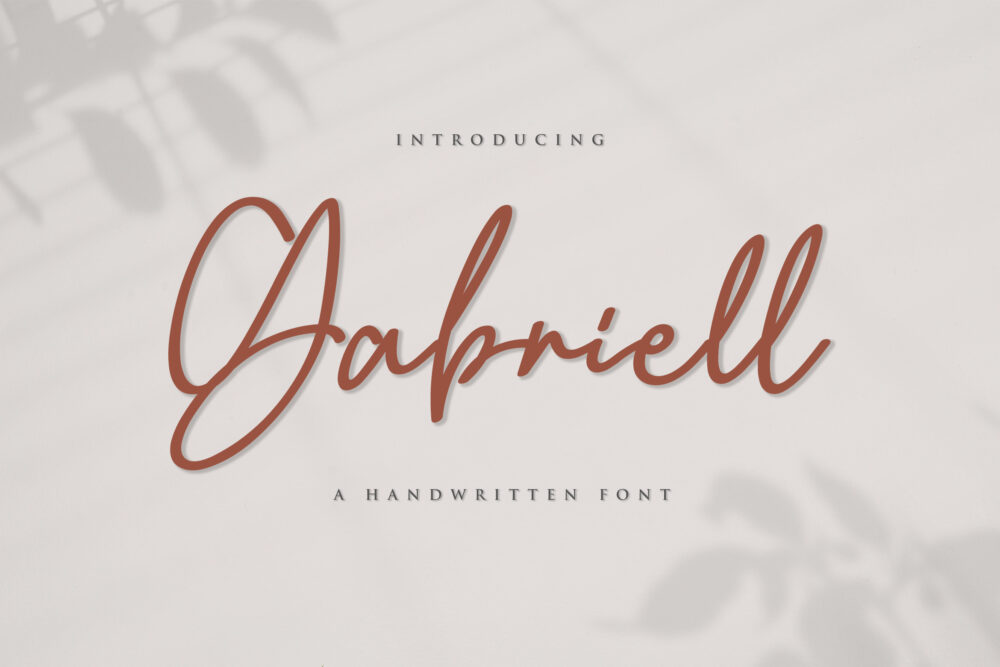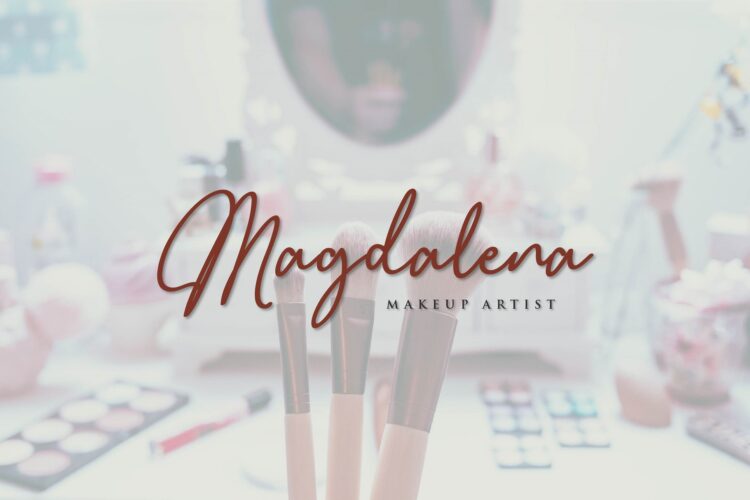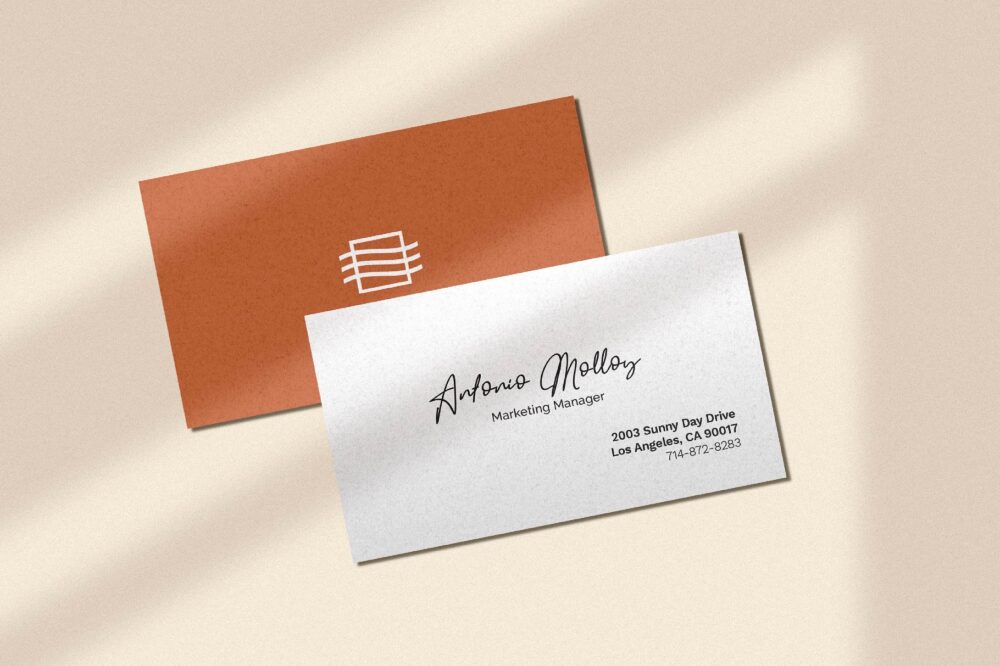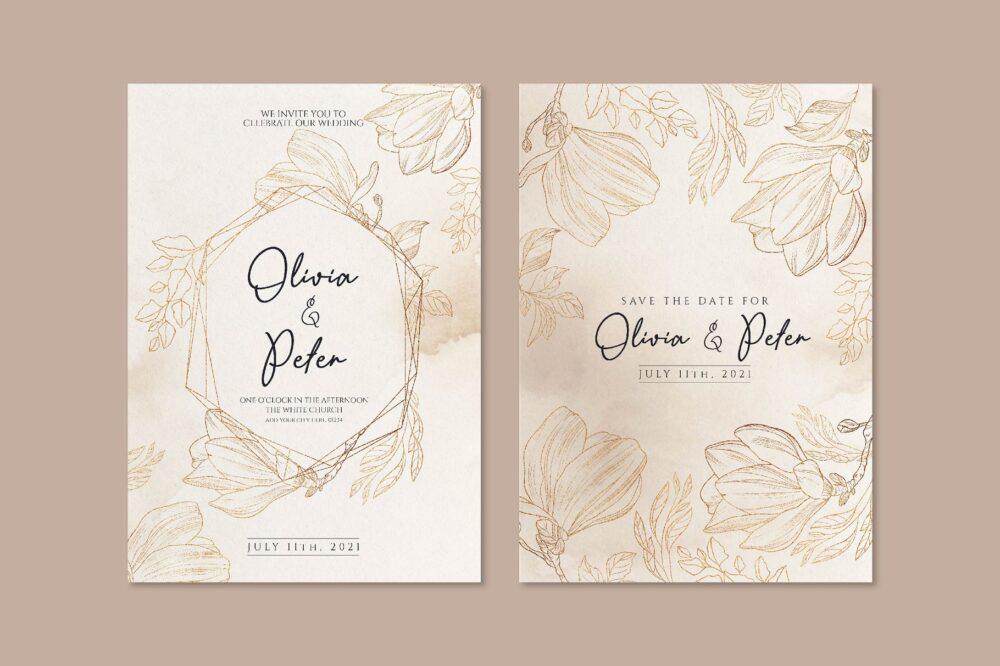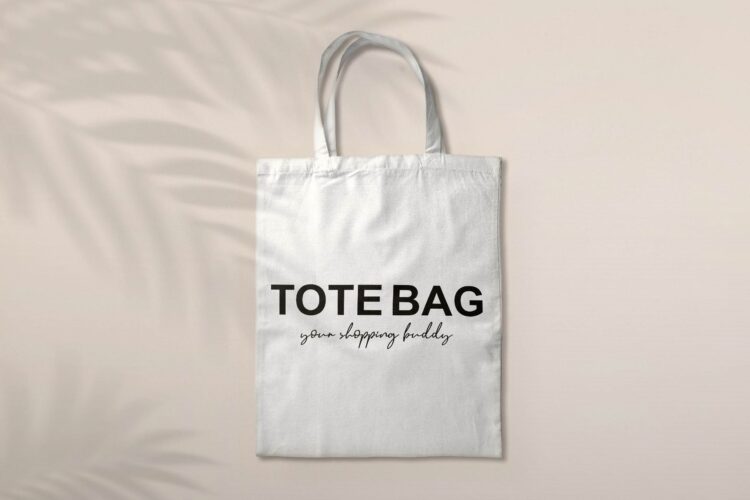
Gabriell
Gabriell is a beautiful signature font for a variety of designs. Gabriell can be used for products such as handcraft, product packaging, quotes, product design, craftsmen, lanels, photography, watermarks, logos & branding. Everything can be accessed using software that supports Opentype, such as Adobe Indesign, Adobe CS IIustrator, Adobe Photoshop CC, and Corel Draw.
Gabriell – Luxury Handwritten Font